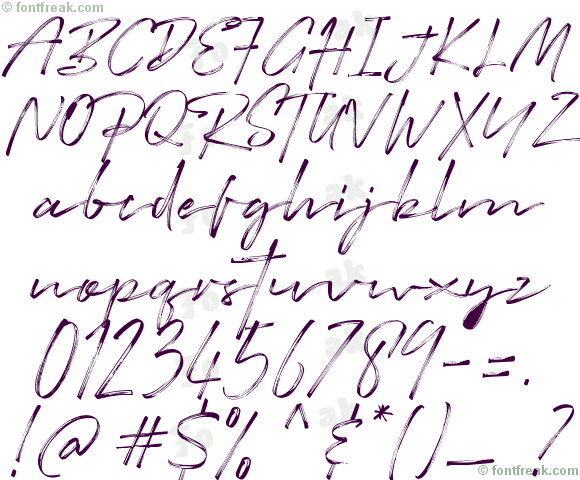
RockBetter-Regular
About RockBetter-Regular
RockBetter-Regular by 50Fox Studio is a stunning script font that exudes elegance and creativity. With its fluid strokes and a slightly playful character, this font beautifully combines the sophistication of handwritten typography with modern design elements. The overall appearance features a medium stroke weight that balances readability with artistic flair, while the varied contrast in the letterforms adds depth and interest. The spacing is thoughtfully designed, allowing for seamless integration into various layouts without compromising clarity.
This versatile font is ideal for a range of applications. It shines in wedding invitations, where its romantic style can evoke emotion and set the tone for the event. Additionally, RockBetter-Regular is perfect for movie posters, lending a touch of drama and artistic style that captures attention. It can also enhance restaurant menus, making them feel more inviting and personal. Content creators will find it valuable for social media graphics, where its unique flair can help posts stand out in a crowded feed. Small business owners looking to elevate their branding can also leverage this font for logos and promotional materials, giving their business a distinctive identity.
Ultimately, RockBetter-Regular stands out due to its unique blend of elegance and creativity, making it an exceptional choice for anyone looking to add a personal touch to their designs. Its combination of artistic flair and practical usability ensures that it will be a beloved addition to any designer's font collection.